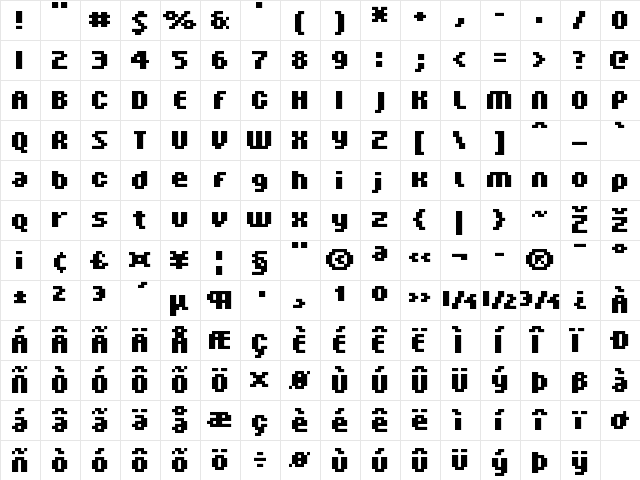
FFF Nadador Bold Tight Regular
Design Context for FFF Nadador Bold Tight Typeface
FFF Nadador Bold Tight takes a measured approach to typography — its balanced proportions and neutral character make it a reliable workhorse for both digital and print work. The heavy weight commands attention and anchors typographic hierarchies.